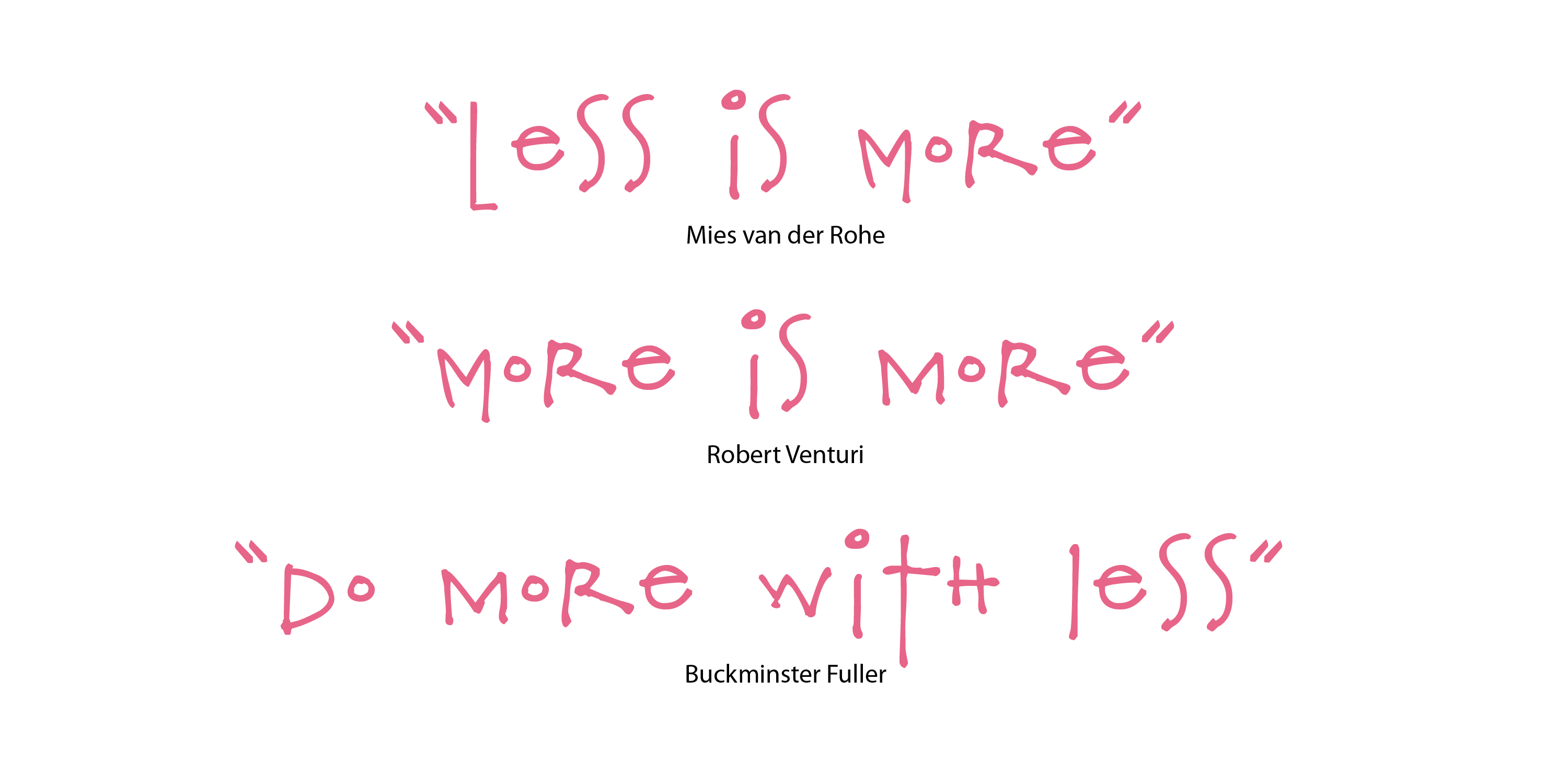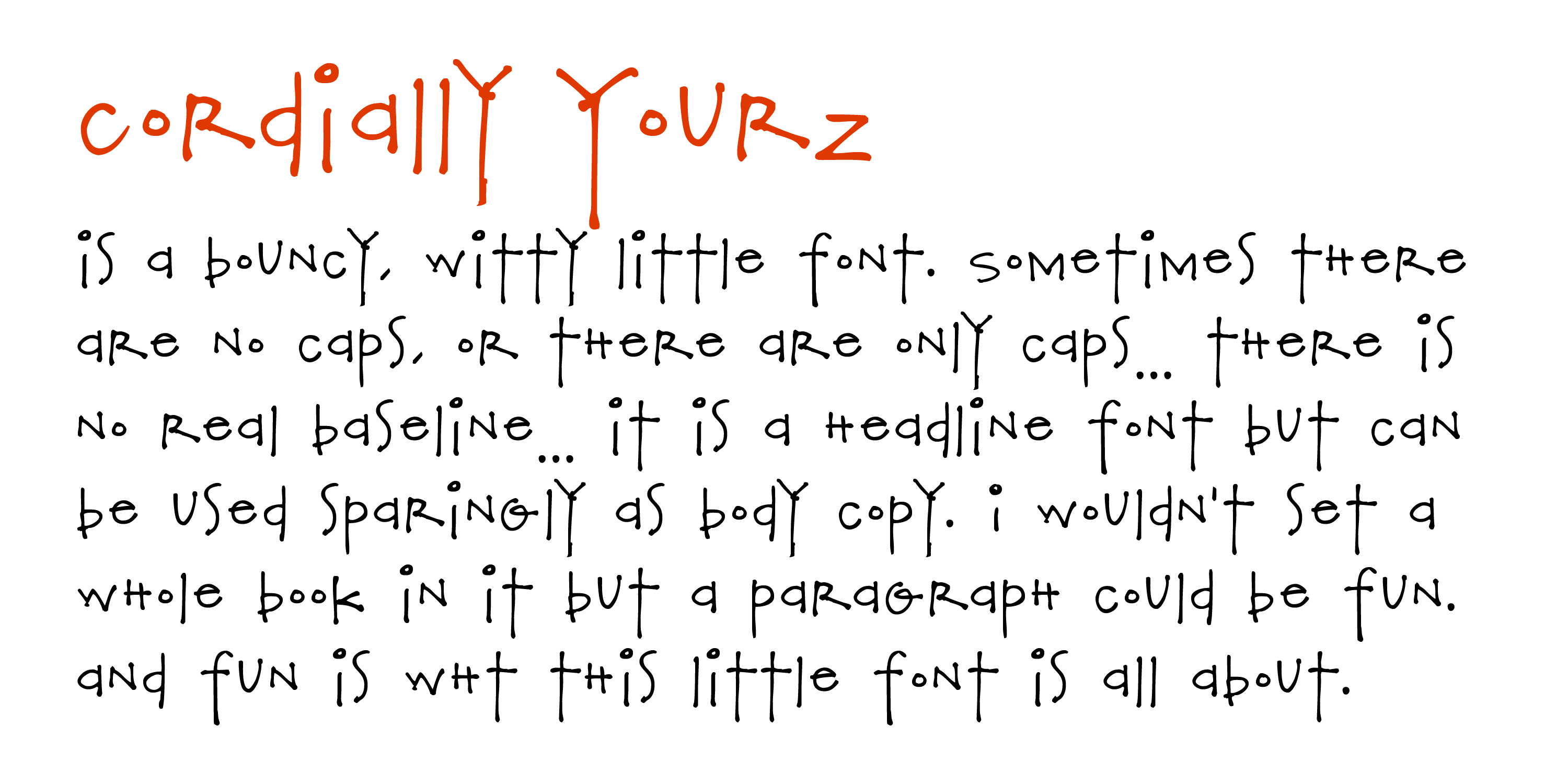
Cordially Yourz
Font Family by Outside-the-Line
Cordially Yourz is a bouncy, witty little font. Sometimes there are no caps, or there are only caps… there is no real baseline… it is a headline font but can be used sparingly as body copy. I wouldn't set a whole book in it but a paragraph could be fun. And fun is what this little font is all about. Cordially Yourz can be seen in the 2012 Typodarium Page-A-Day Calendar on 5-29-2012.